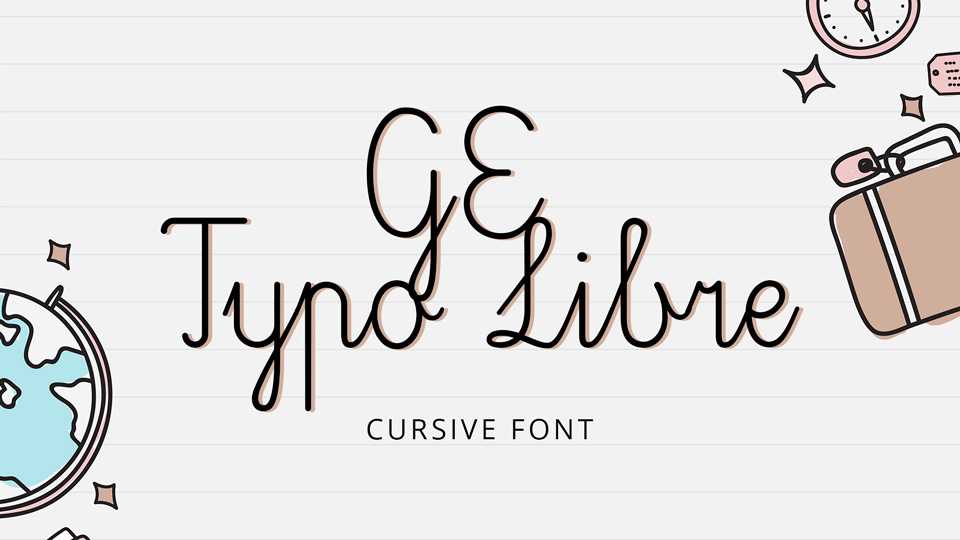
Download GE Typo Libre font, a cursive font created for the educational purposes. Font GE Typo Libre has good readability and legibility, perfectly suits for text.